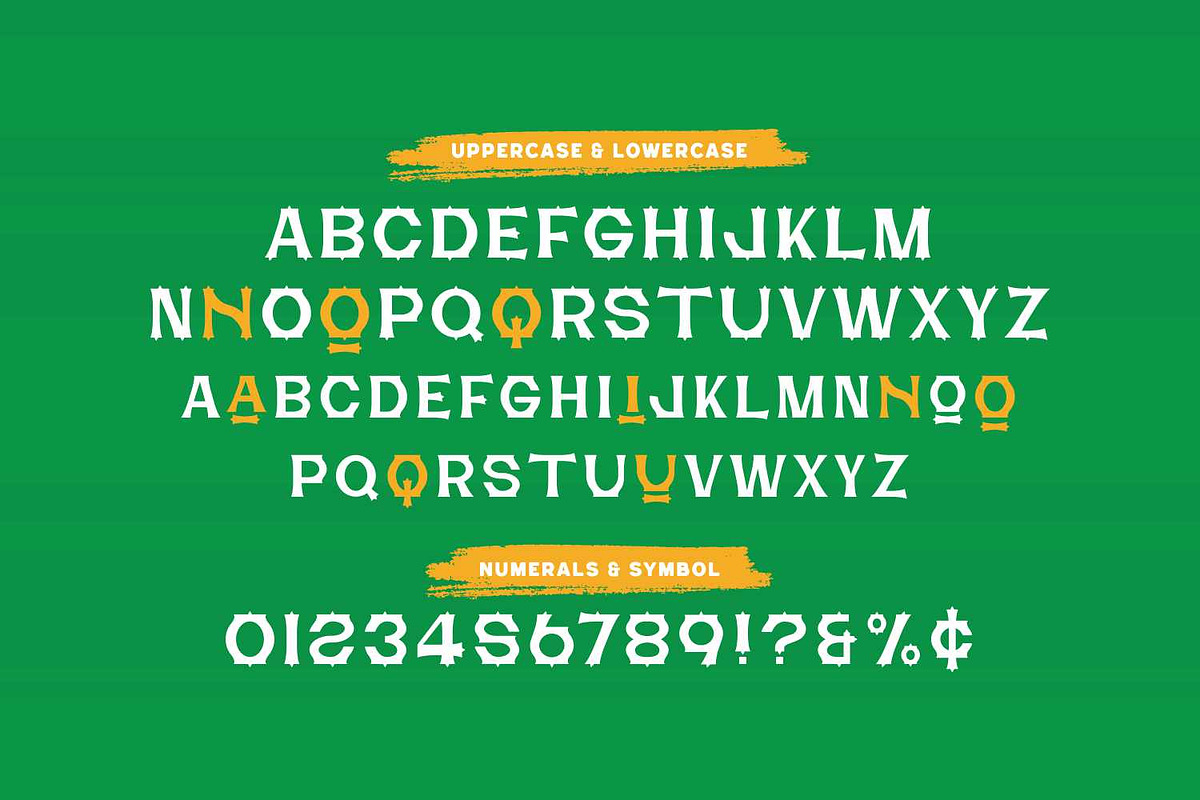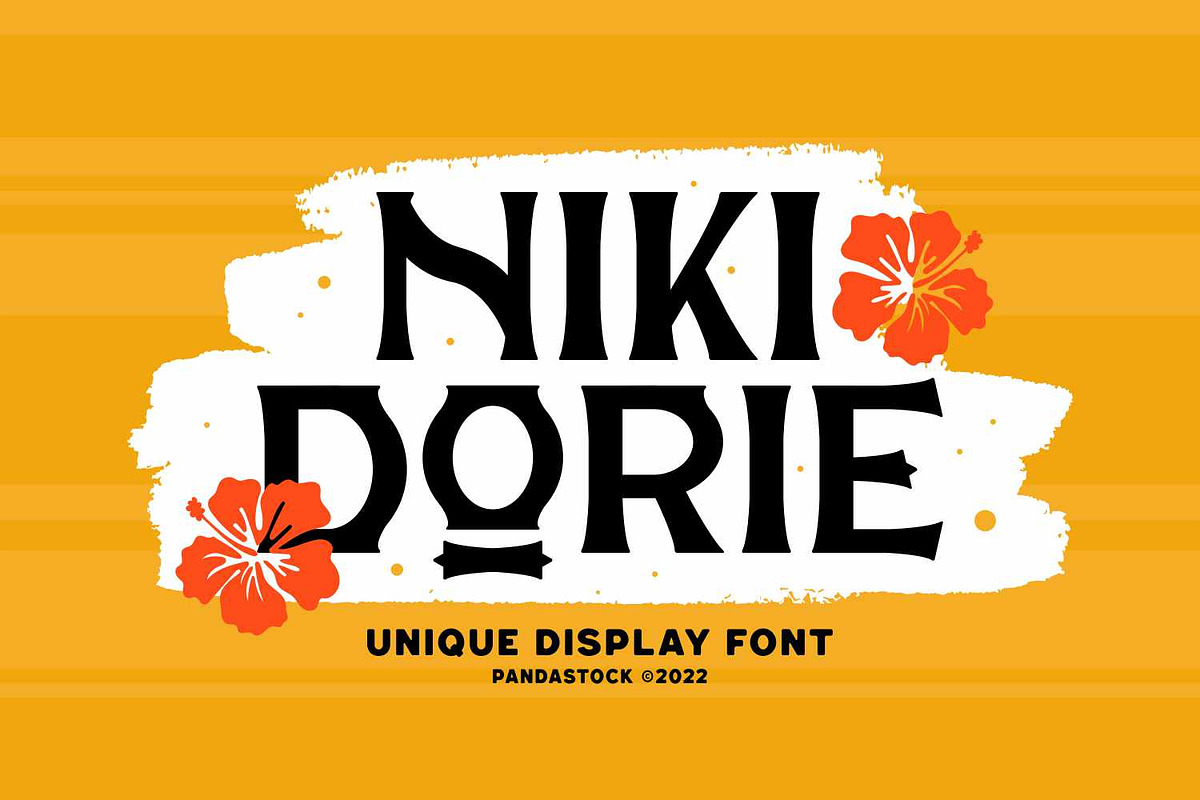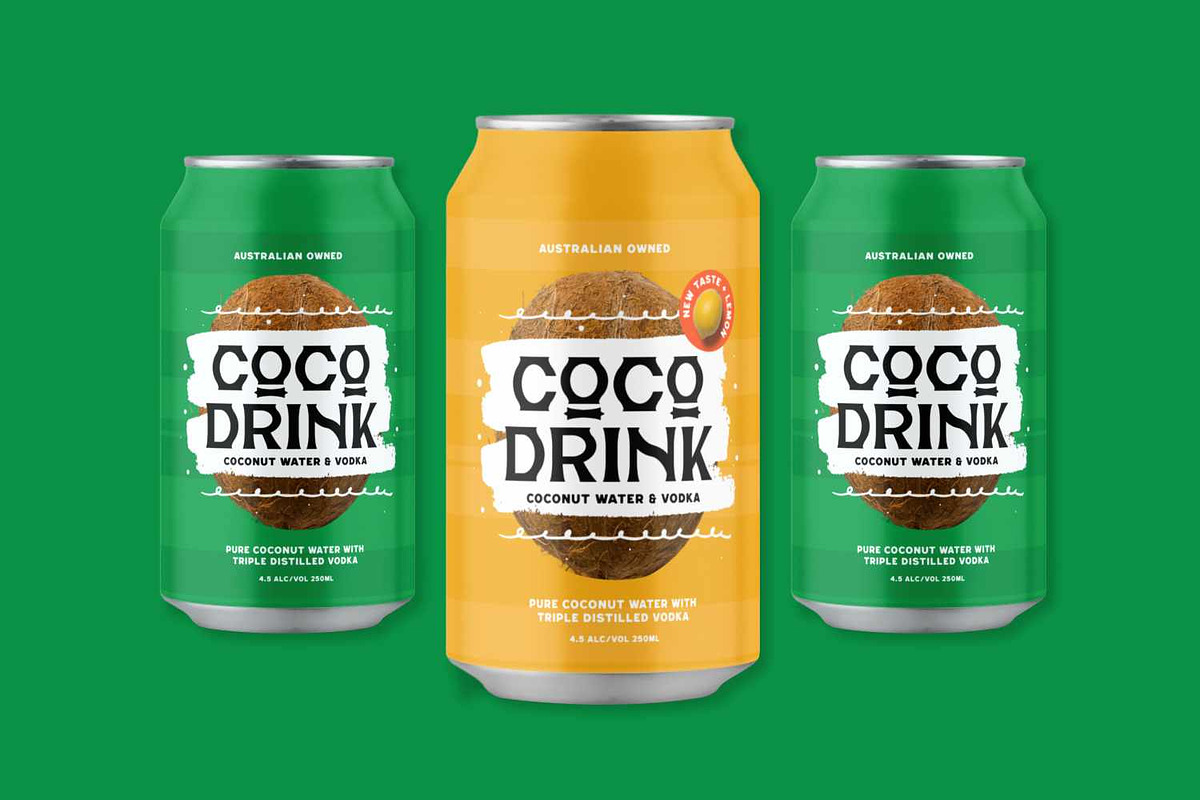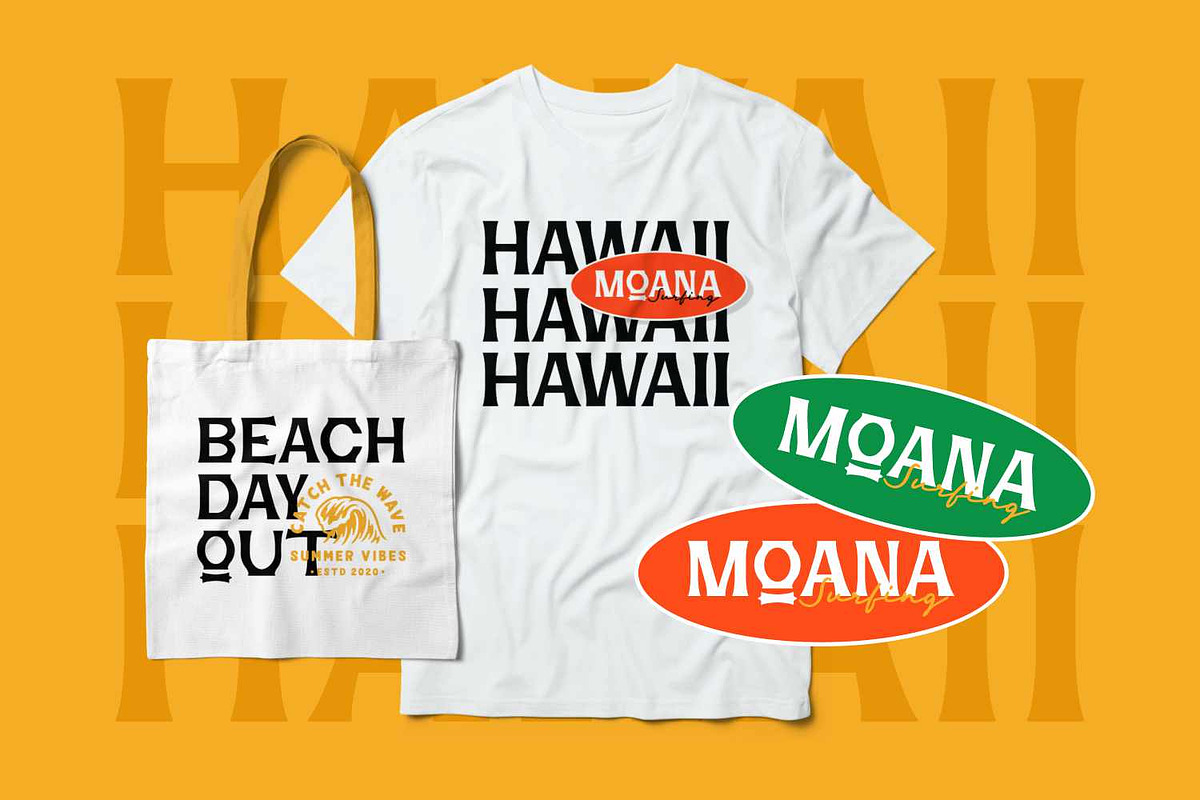
Niki Dorie Modern Display Fonts
Niki dorie is modern display fonts with visual elegance, smooth curves, and beautiful ligatures clear, making your work look true and attractive.
A versatile font that works in both large and small sizes. This font is suitable for a wide variety of projects such as invitations, logos, branding, magazine, photography, card, product packaging, mugs, quotes, poster, labels, signatures, and more.